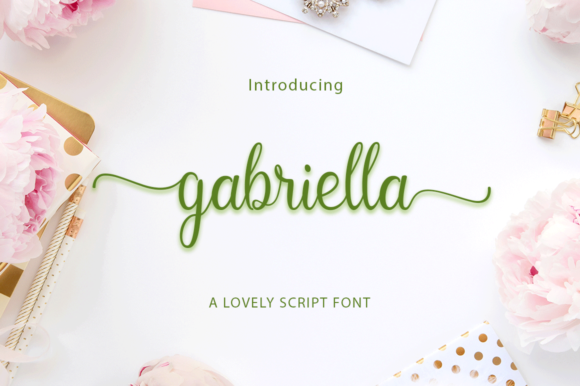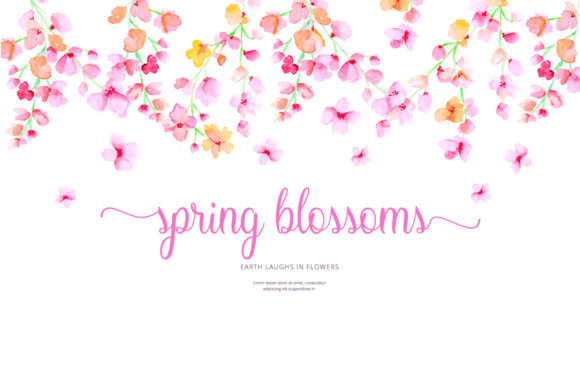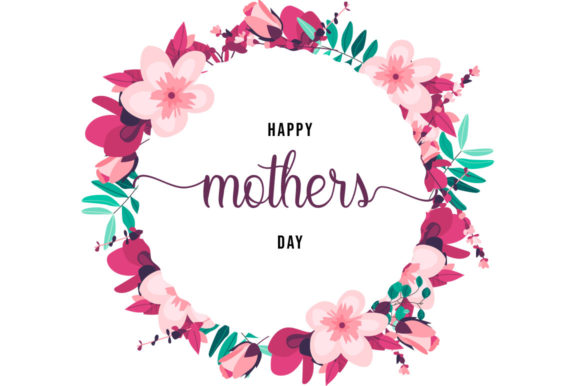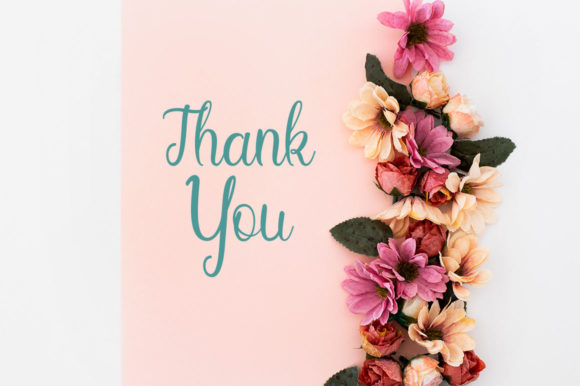
Gabriella Font
About Gabriella Font
Gabriella is a fresh & modern script that features a handwritten calligraphy style, packed with decorative characters.